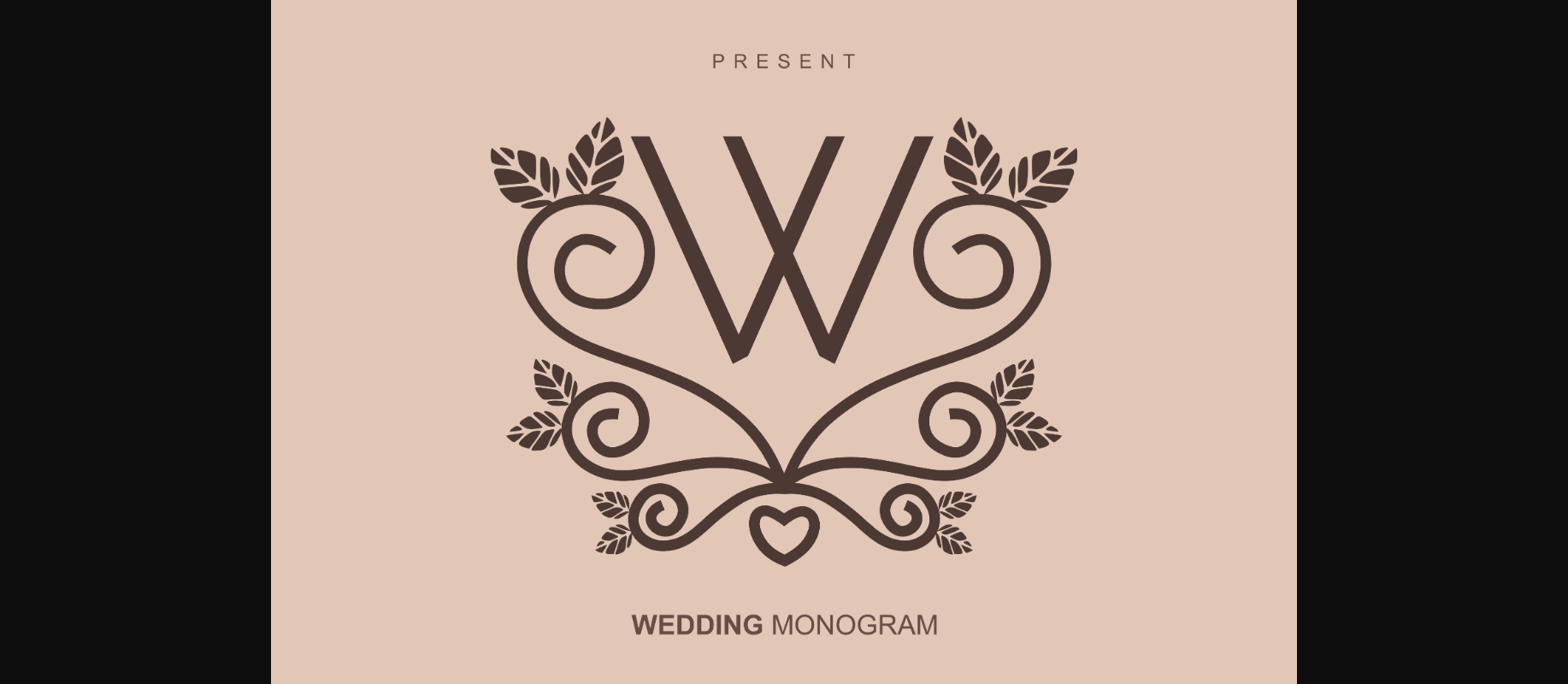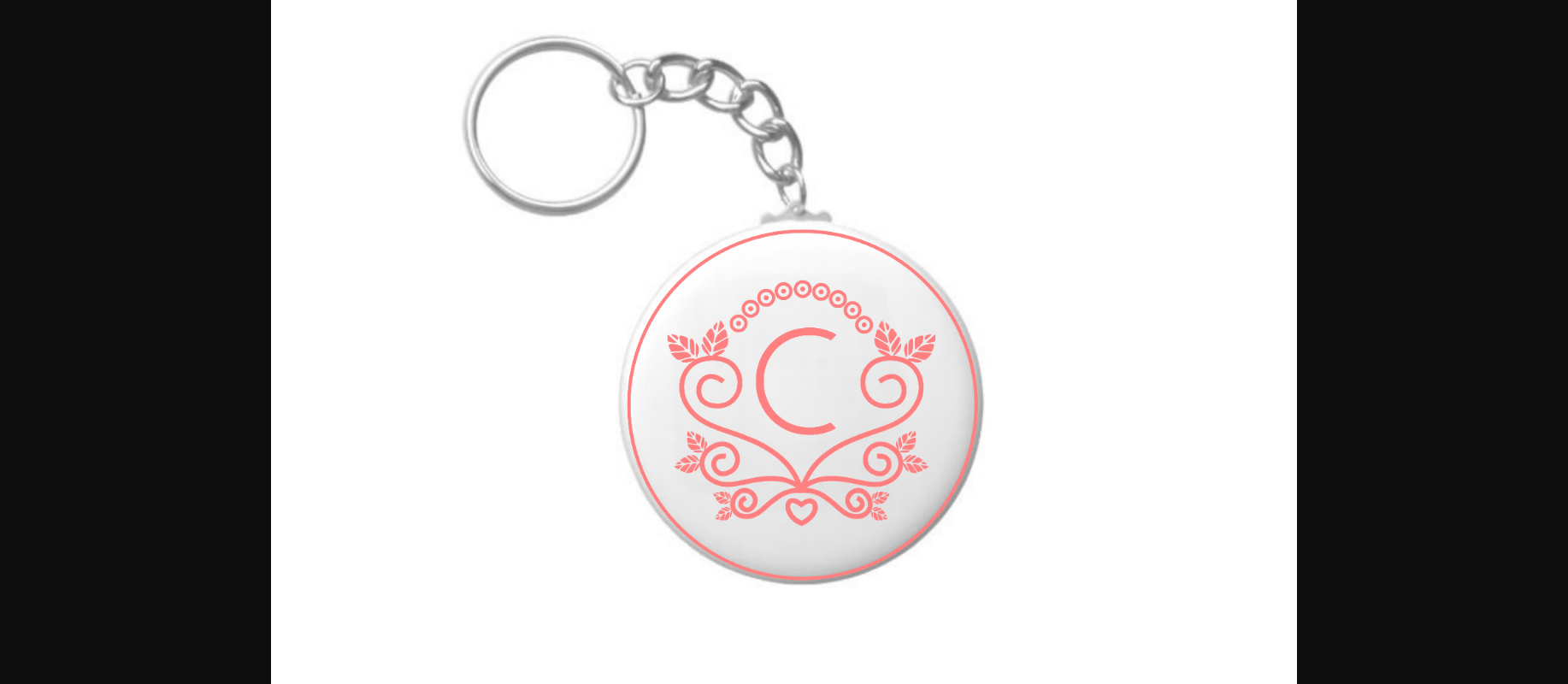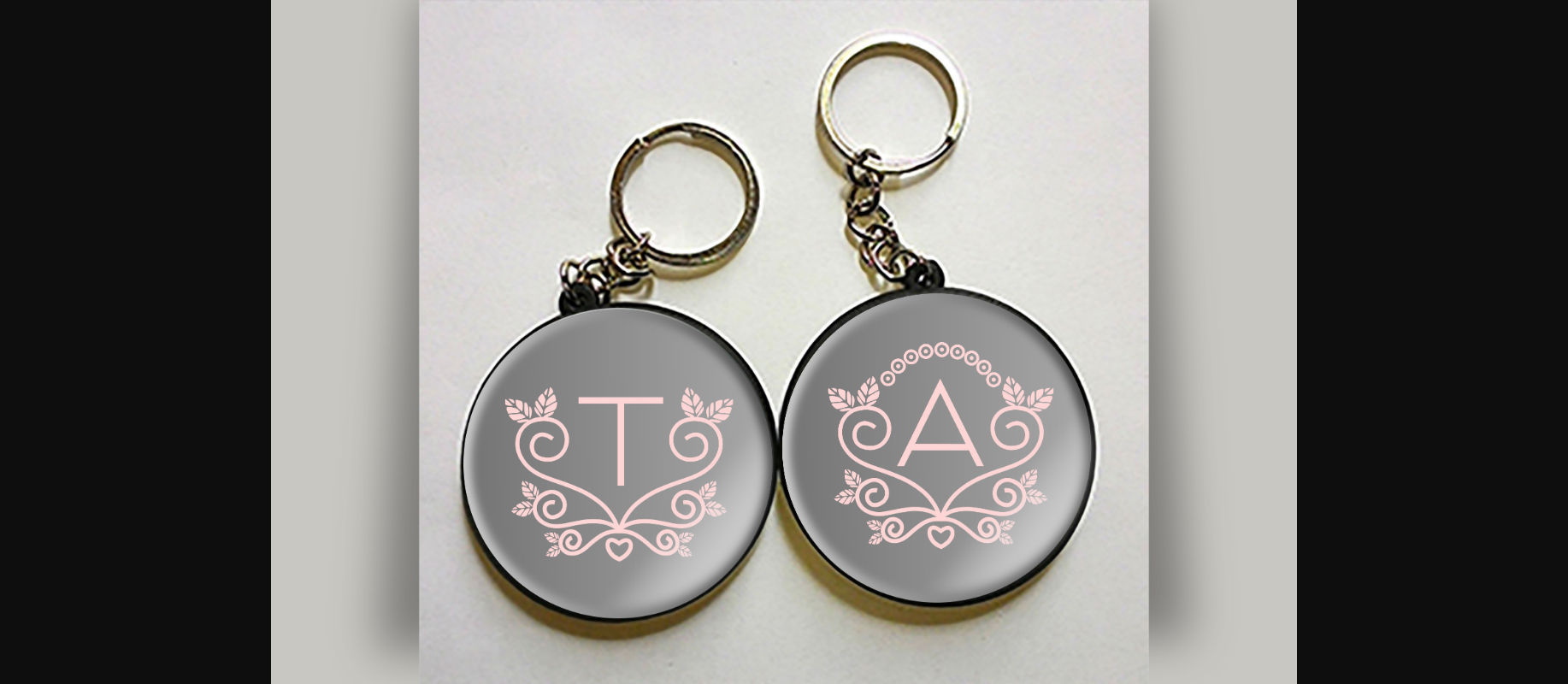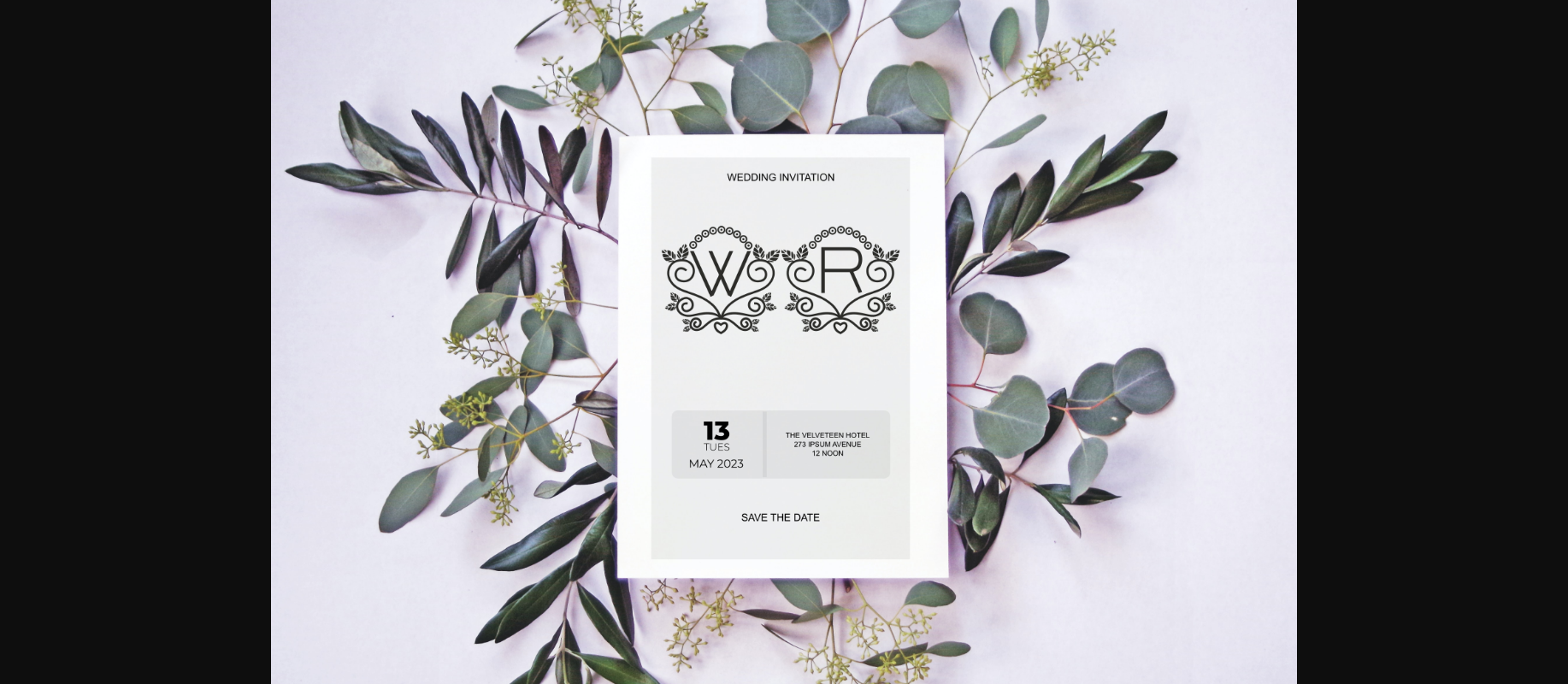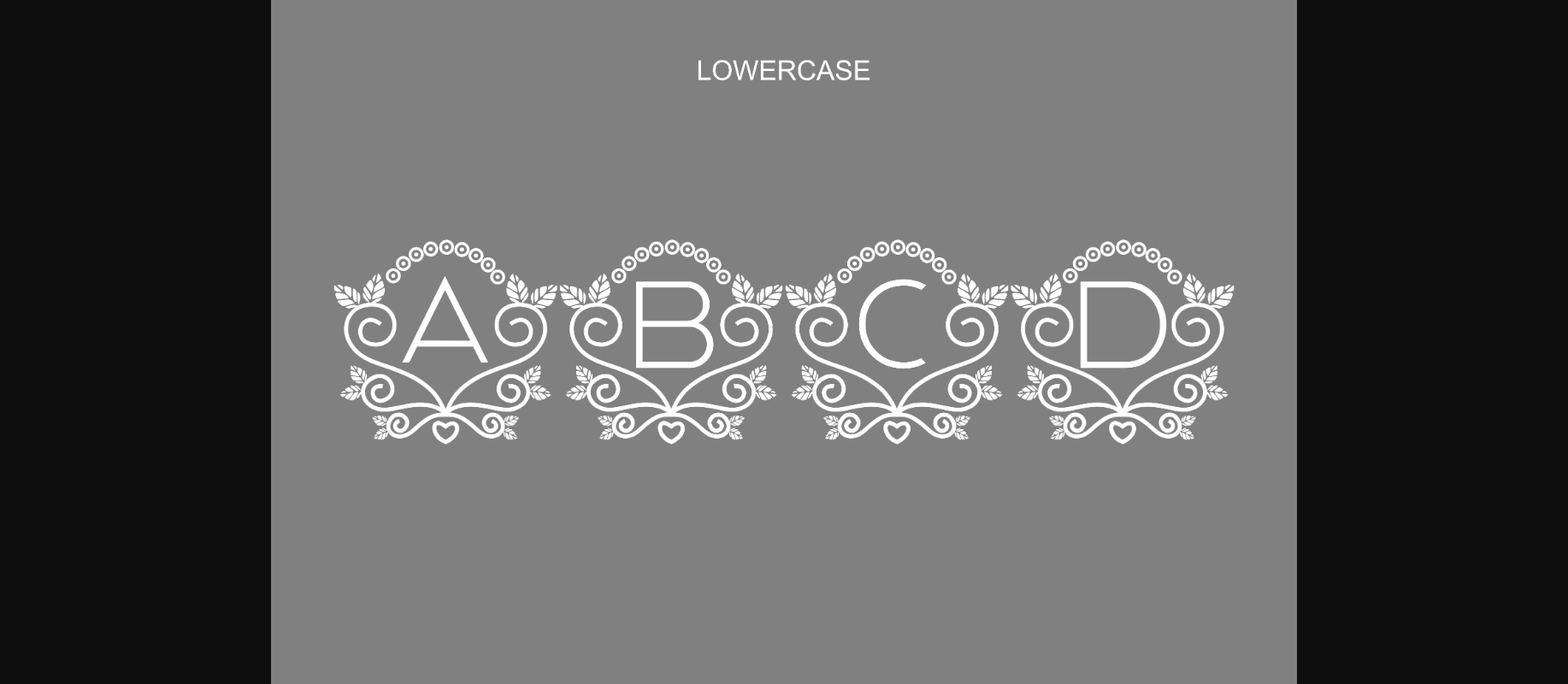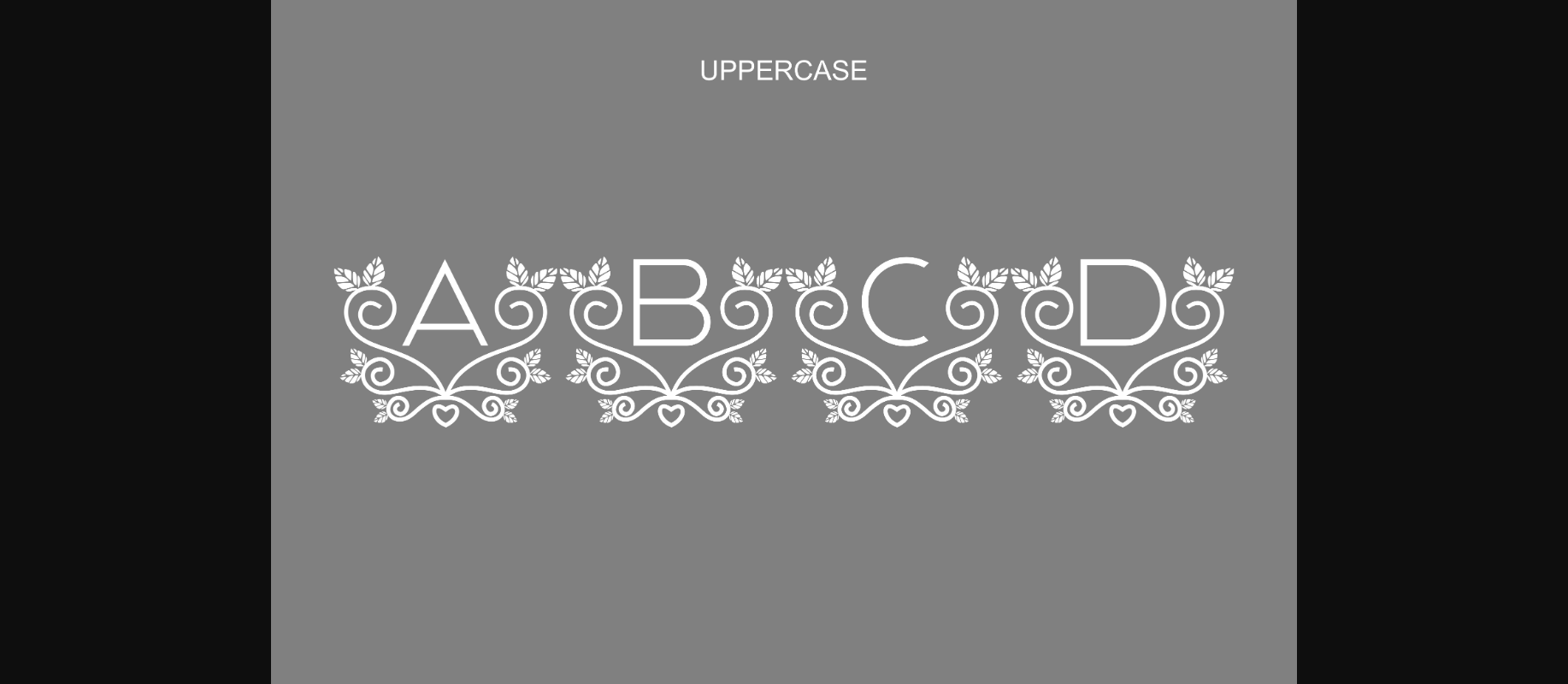
HomeDecorative FontsWedding Monogram Font Decorative Fonts Wedding Monogram Font FacebookXPinterestWhatsApp 1 of 8 ... Wedding Monogram Font Poster 2... Wedding Monogram Font Poster 3... Wedding Monogram Font Poster 4... Wedding Monogram Font Poster 5... Wedding Monogram Font Poster 6... Wedding Monogram Font Poster 7... Wedding Monogram Font Poster 8... About Wedding Monogram Font Wedding Monogram is a dainty and beautiful decorative font. Fall for its ravishing style and use it to create gorgeous designs. DOWNLOAD NOW People also explored Alaska Kents Font Jolly Season Font Smart T-Shirt Font Julietta Font Wooden Font Gratitude Font Cute Girl Font Sweet Lemonade Font Static Room Font 308 0 TagsWedding Monogram Font Previous articleSuper Galaxy FontNext articleElona Green Font LEAVE A REPLY Cancel reply Comment: Please enter your comment! Name:* Please enter your name here Email:* You have entered an incorrect email address! Please enter your email address here Website: Save my name, email, and website in this browser for the next time I comment. Personal Use Free Shelly Personal Use Free Read more about this font Bulky Personal Use Free Read more about this font Harshita Personal Use Free Read more about this font Gratisan Personal Use Free Read more about this font BLOG How to Install and Use Fonts on Windows, macOS, and Web Projects How to Install and Use Fonts on Windows, macOS, and Web Projects Fonts are a crucial part of design and branding. Whether you’re designing a... How to Cut Any Font on Cricut: Convert a Font to SVG (Free) Top 10 Handwritten Fonts That Elevate Your Designs Transform Your Website: Elevate Your Typography with 7 Best Web Font Generators